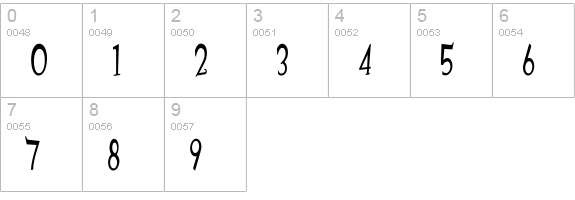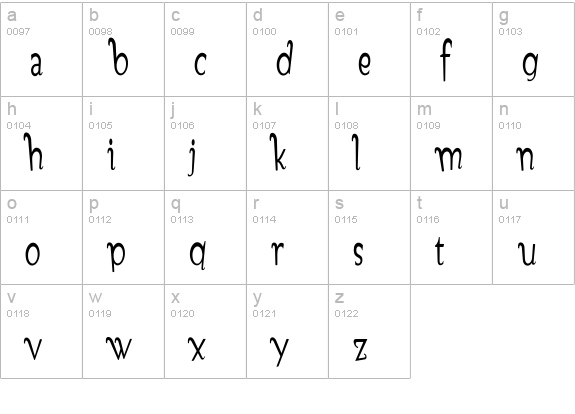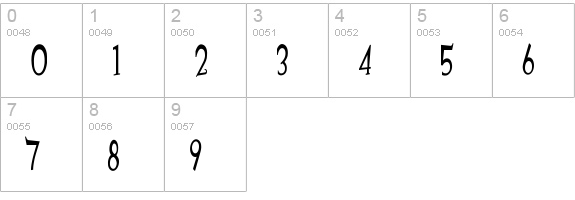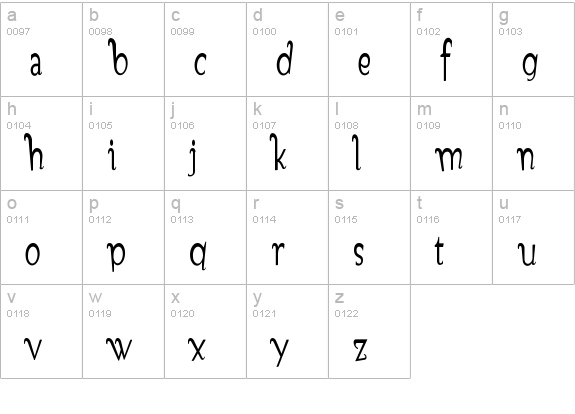
Gondoliere Font Details
Gondoliere font is a stylish and elegant typeface that exudes sophistication and charm. With its graceful curves and classic design, this font is perfect for adding a touch of class to any project. Whether you're designing a wedding invitation, creating a logo, or working on a branding project, Gondoliere font will elevate your work to the next level. The best part is that Gondoliere font is completely free to download at FontsMarket.com. This means you can access this high-quality font without spending a penny, making it a fantastic choice for designers on a budget or anyone looking to add a touch of luxury to their projects. Don't miss out on the opportunity to enhance your designs with Gondoliere font - download it today and see the difference it can make!